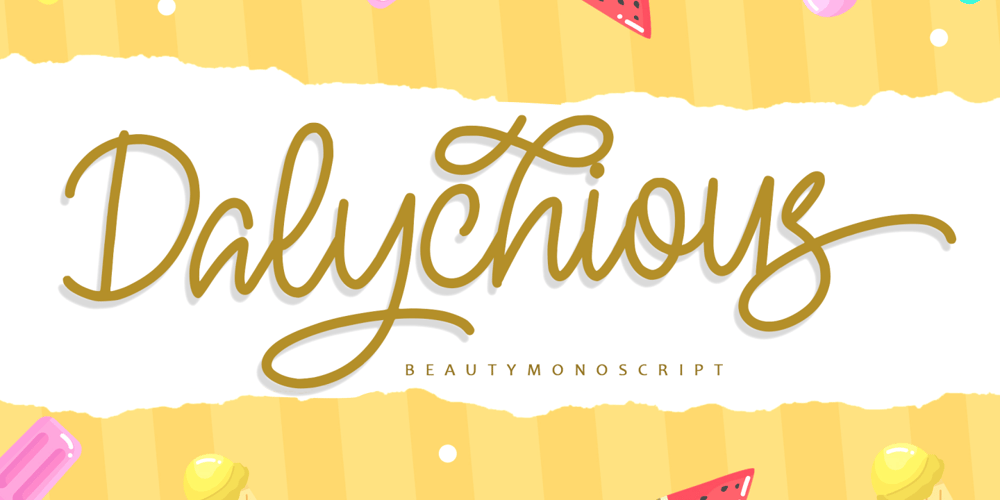
Dalychious Font Family was designed by Good Java and published by Good Java Studio. Dalychious contains 1 styles and family package options. Dalychious – Beauty Monoscript Font is a monoscript font. I’ts Perfect for logo, invitation, stationery, wedding designs, social media posts, advertisements, product packaging, product designs, label, photography, watermark, special events or anything. This font include Ligatures and also Multilingual support.